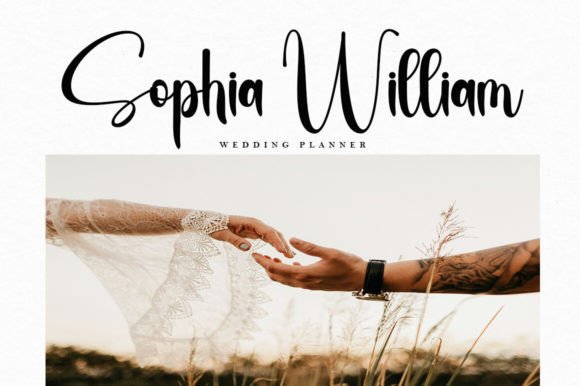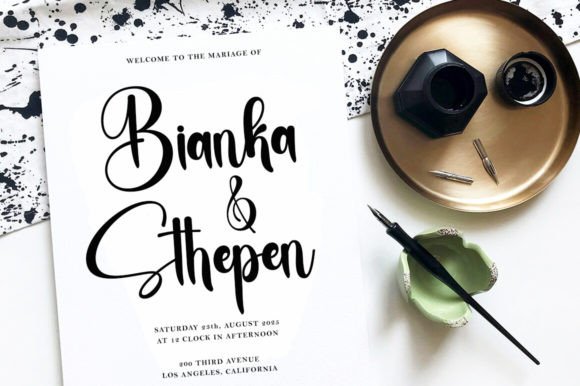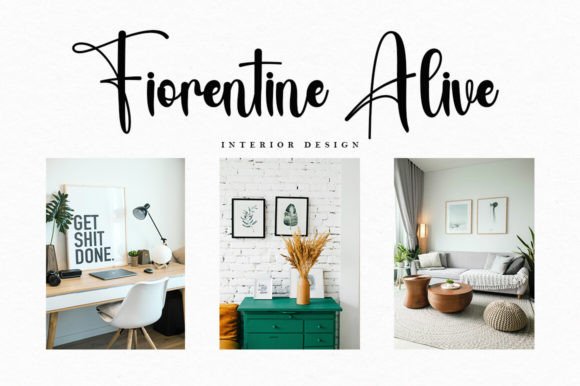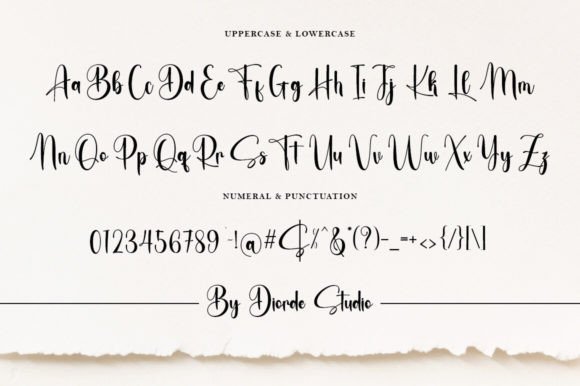
Rustic Signature Font
Rustic Signature is a lovely script font with exquisite letters and perfect calligraphy. This font is great to use on projects that need cursive handwriting and an authentic feel. This font is PUA encoded, which means you can access all of the glyphs and swashes with ease!